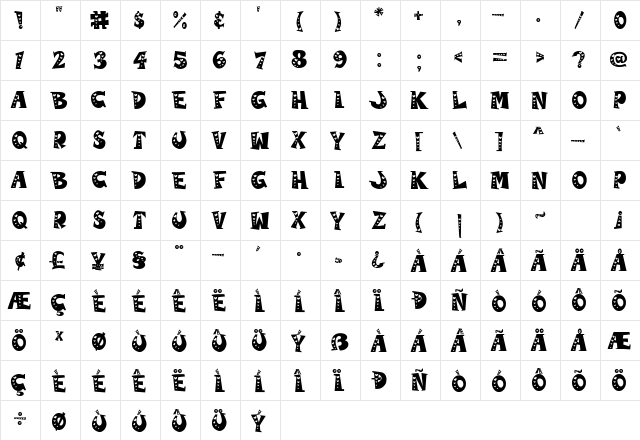
Kiddie Love Regular
Design Context for Kiddie Love Typeface
Kiddie Love is a composed and adaptable typeface that performs quietly and consistently across a wide range of design contexts.
Pro Tip: Use Kiddie Love in both headline and body roles to test its range before committing to a single application.